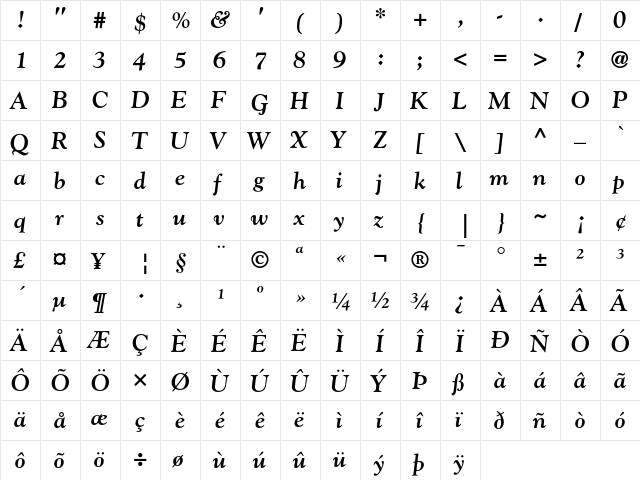
Goudy Bold Italic Font Preview
Goudy Bold Italic
Goudy Bold Italic Font Details
Design Context for Goudy Typeface
Goudy takes a measured approach to typography — its balanced proportions and neutral character make it a reliable workhorse for both digital and print work. The slanted form adds forward momentum and visual energy. The heavy weight commands attention and anchors typographic hierarchies.
Pro Tip: Use Goudy for emphasis, pull quotes, and subheadings where its slanted energy can add rhythm to the layout.